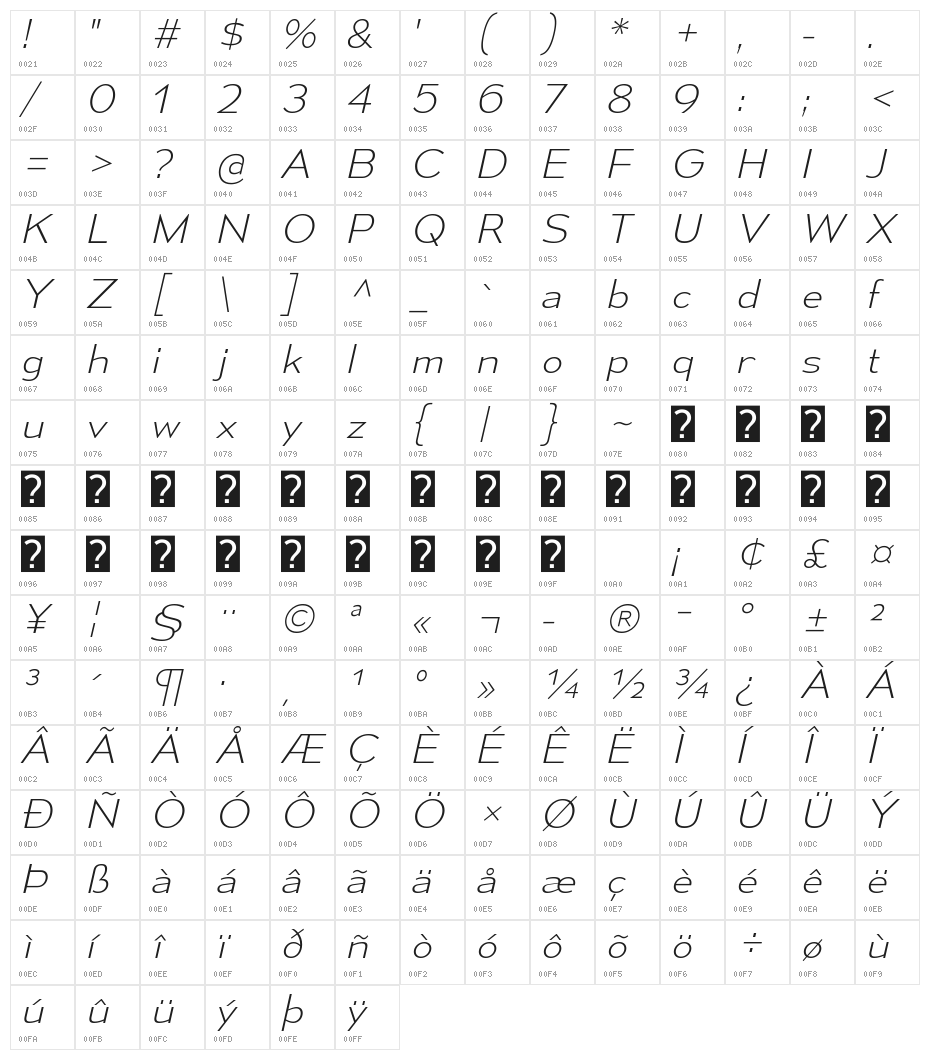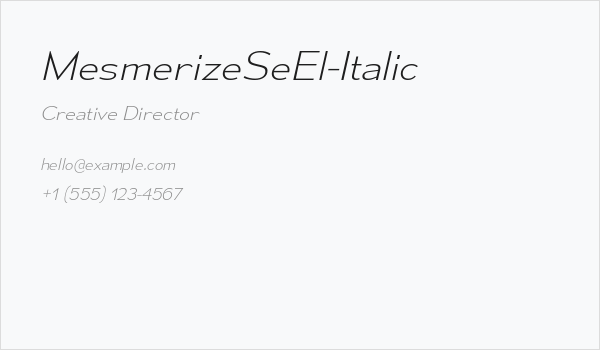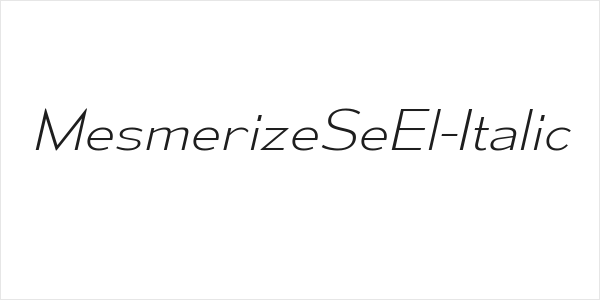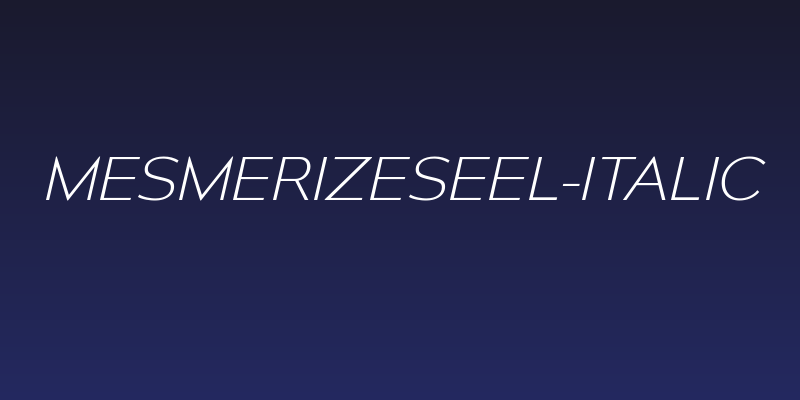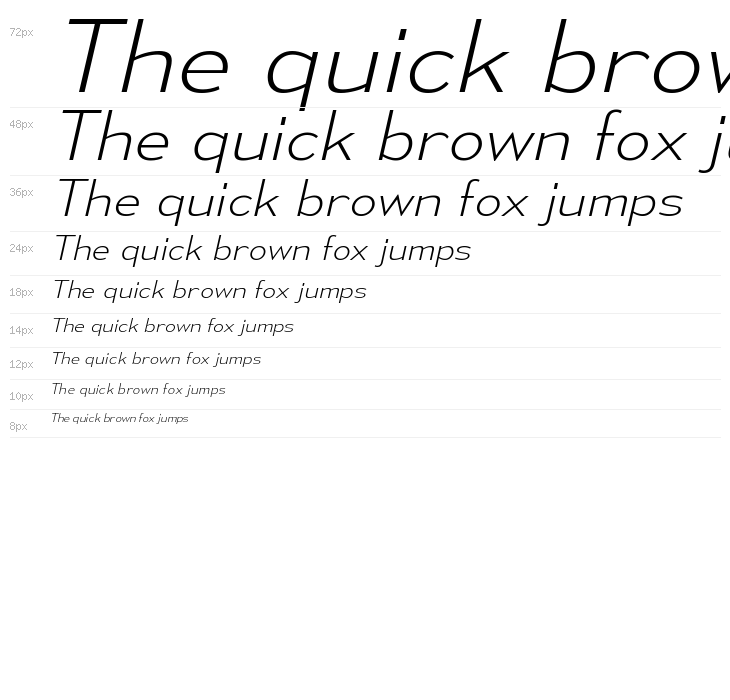
MesmerizeSeEl-Italic Font
MesmerizeSeEl-Italic Description
This font exhibits a sleek and modern aesthetic with a slight italic slant, giving it a dynamic and forward-moving appearance. The characters are cleanly designed with smooth curves and sharp edges, providing a sense of elegance and sophistication. The uppercase letters maintain a consistent height, while the lowercase letters are slightly more rounded, adding a touch of softness. The numerals are well-proportioned, ensuring readability. Special characters are included, matching the overall style of the font, making it versatile for various applications.